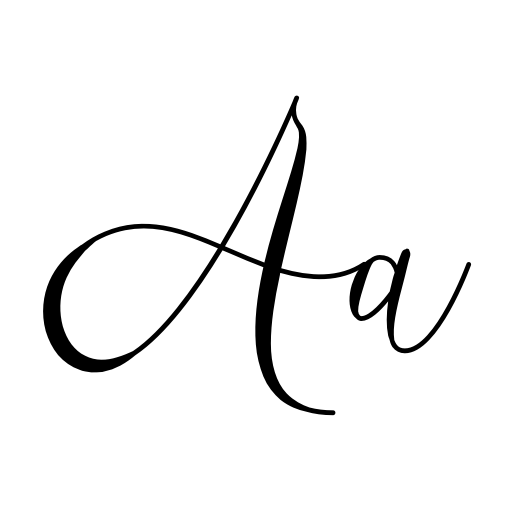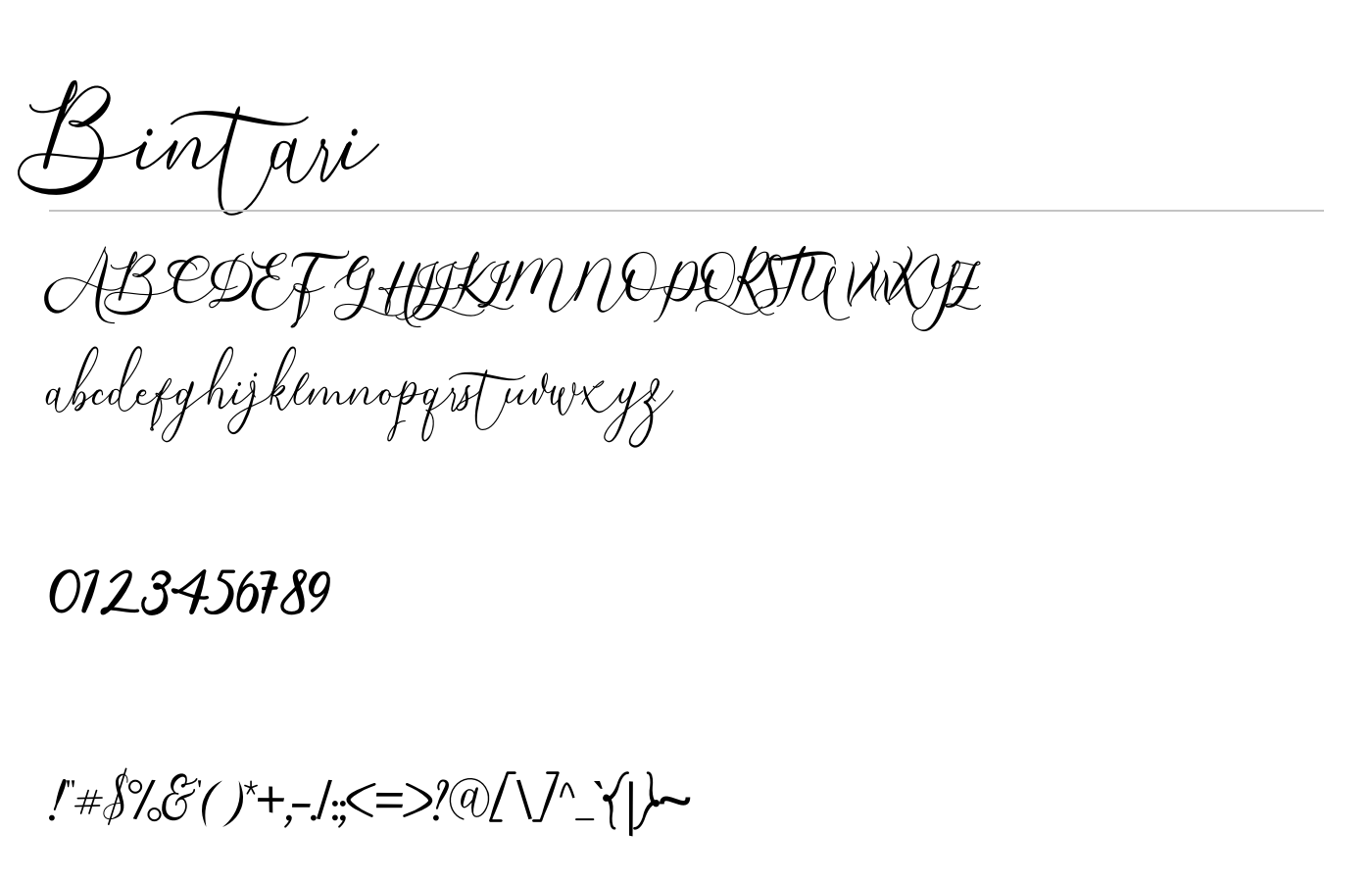
Bintari is an elegant script font with delicate, flowing strokes that create a handwritten, graceful appearance. Its slender letterforms and stylish flourishes make it perfect for sophisticated branding, wedding invitations, and feminine or luxury designs where a personal, artistic touch is desired. This font works beautifully in headlines and decorative text, adding charm and refinement to any project.
Bintari Font
About Bintari Font
| Font family | Bintari Font |
| Designer | KongFont |